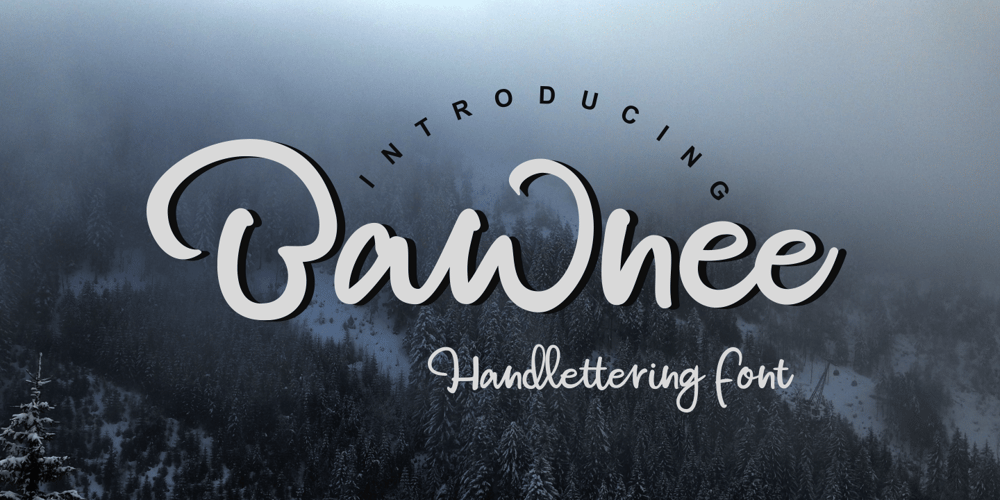
Bawnee Font Family was designed by Joko Setiono and published by Arttype7. Bawnee contains 1 styles and family package options. Bawnee is a handwritten font with a natural style.This font has many ligatures and has multi-lingual support.Bawnee is perfect for signatures, logos and all kind of projects you might work on.